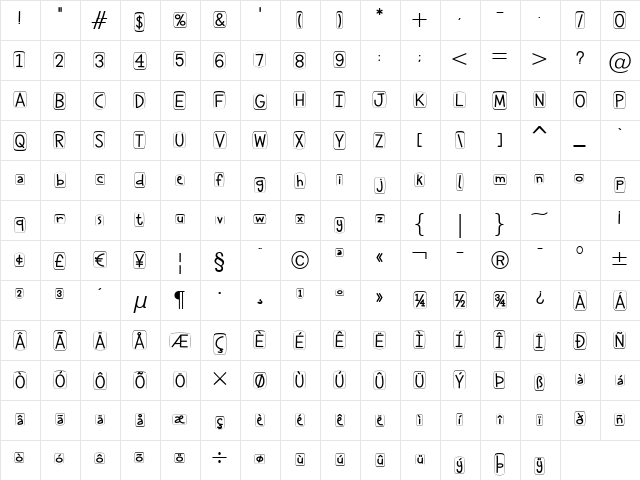
Cheddar Salad BTN Cameo Regular
Design Context for Cheddar Salad BTN Cameo Typeface
Cheddar Salad BTN Cameo offers clean, dependable letterforms without strong stylistic allegiance, making it a practical choice for designers who need flexibility.